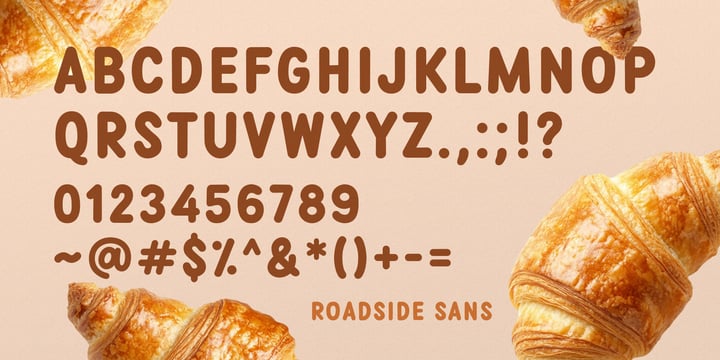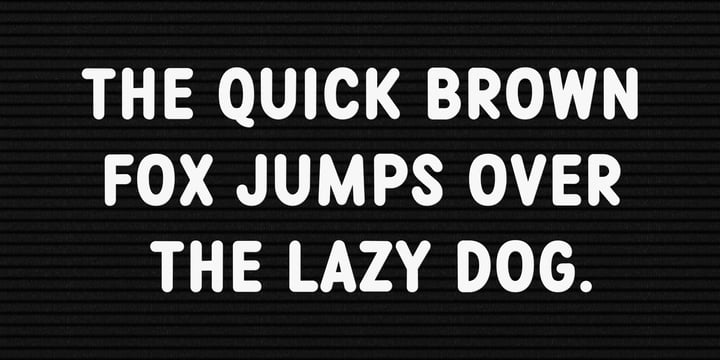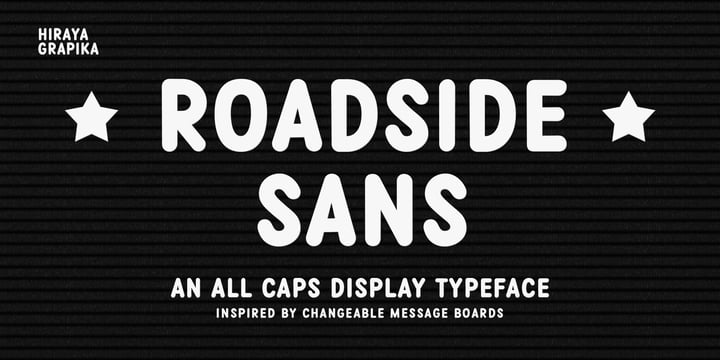
Emmanuel Ludovice
I'm Emmanuel Ludovice, a licensed electrical engineer turned self-taught graphic and type designer. My journey into the world of type design began with a simple frustration: sometimes it’s hard to find a typeface with the exact look and feel you need. And as they say, if you can’t find one, create one. My shift from amperes to pixels stems from a lifelong fascination with art and visual communication, tracing back to my childhood days of experimenting with MS Paint and the fonts of good old Windows 98.
My debut release, Pochi, is the product of learning by doing, born out of my exploration into type design and crafting custom letterforms. This process reinforced a guiding principle: every typeface should serve a visual or emotional purpose, not exist merely for aesthetics.
With a handful of works-in-progress (and a fair share of unfinished experiments) simmering, my focus as an independent type designer lies in creating distinctive display typefaces—experimental yet functional, and unapologetically unique.